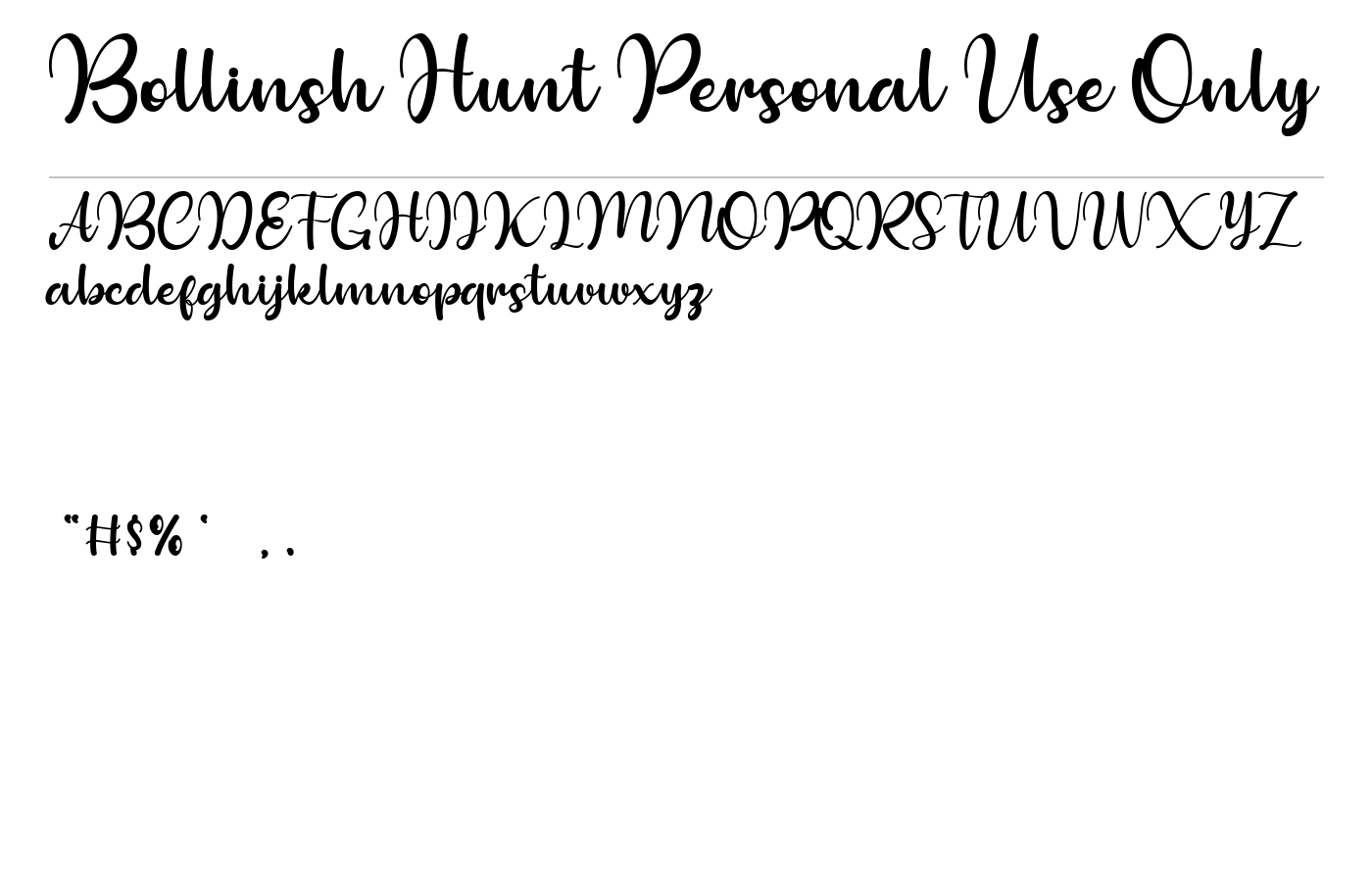
Bollinsh Hunt Personal Use Only is a playful and elegant script font featuring smooth, flowing strokes with moderate contrast and rounded terminals. Its lively letterforms and casual yet refined style make it ideal for creative branding, invitations, and personal projects that seek a warm, handwritten touch. This font works best in headlines or display uses where a friendly and approachable personality is desired.
Bollinsh Hunt Personal Use Only Font
About Bollinsh Hunt Personal Use Only Font
| Font family | Bollinsh Hunt Personal Use Only Font |
| Designer | Muhammad Faizal Said |